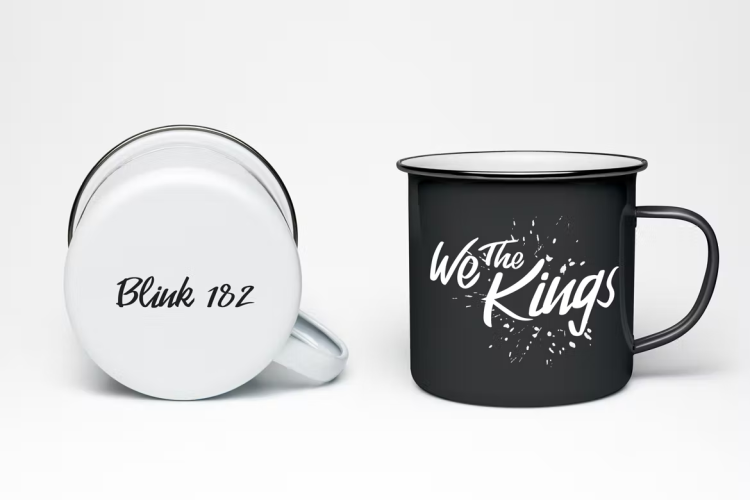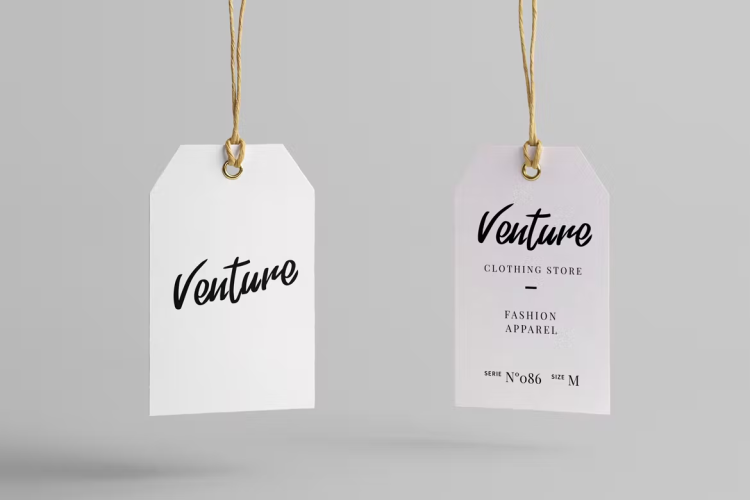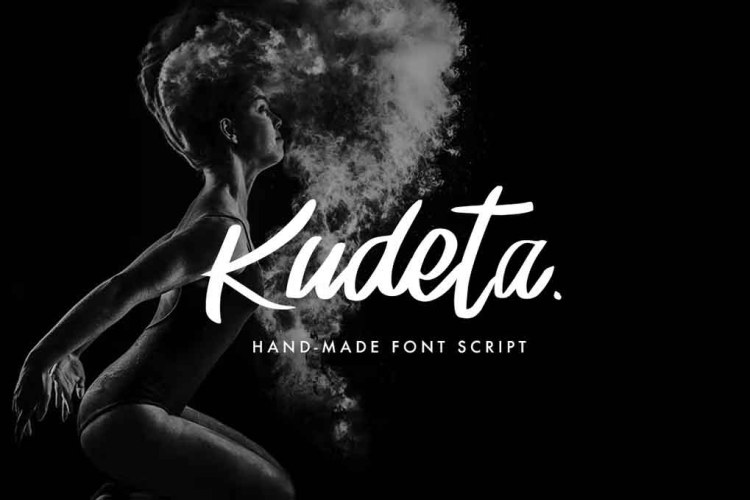
Kudeta Handmade Font
We Provide You one of the best Stylish Hand Written Script. Best match for logos, header, Titles, Prints & other Creative process possibilities. Create a Extraordina…
We Provide You one of the best Stylish Hand Written Script. Best match for logos, header, Titles, Prints & other Creative process possibilities.
Create a Extraordinary Typography / lettering results by using Kudeta Handmade font script
Where Kudeta Handmade Font works best
A short phrase in Kudeta Handmade Font carries warmth that a typeset sans cannot fake; keep the rest of the card plain.
Chalkboard-style headings in Kudeta Handmade Font make a menu feel hand-made. Keep the dish descriptions in a simple face so prices stay readable.
One line of Kudeta Handmade Font over a photo is enough; the script carries the tone and the caption does the work.
What kind of work does Kudeta Handmade Font suit?
It sits in the Script And Handwritten group and reads as branding, clean, creative, handwritten. That makes it a candidate wherever those qualities help: headings, packaging, social graphics and brand work. Set it at the size you plan to use before deciding.